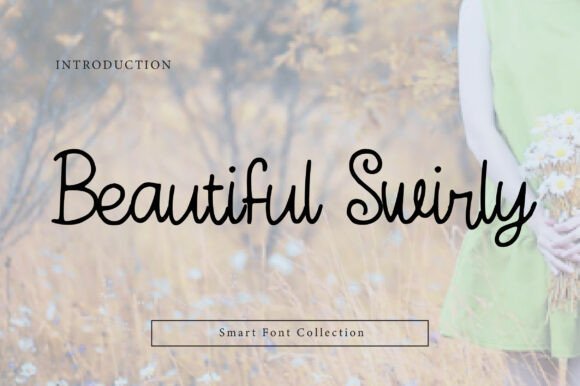
Unleash the Magic of Beautiful Handwritten Text
As a designer, have you ever stared at a blank page, trying to capture the essence of a dreamy concept? The right font can make all the difference, transporting your audience to a world of whimsy and wonder. For those seeking a touch of magic in their creative projects, I’d like to introduce you to the enchanting Beautiful Swirly Font.
This delicate handwritten typeface brings a unique blend of elegance and playfulness to your designs. Characterized by its fluid loops and whimsical terminals, the Beautiful Swirly Font captures the essence of a hand-penned letter, making it perfect for adding an artisanal touch to your work. Whether you’re designing for weddings, beauty brands, or social media, this font is sure to elevate your creations and leave a lasting impression on your audience.
Key Features of Beautiful Swirly Font
- Unique Characteristics: Whimsical swirly design, perfect for creative and artistic projects
- Recommended for: Logos, branding, invitations, and other creative applications
Beautiful Swirly Font Review
First off, I want to say that I love the whimsical vibe of this font. It’s perfect for adding a touch of magic to your designs ✨. The swirly patterns and flourishes make it ideal for titles, headings, and other attention-grabbing elements. It’s also great for creating a sense of movement and energy.
However, I do have some concerns about its versatility ⚠️. The font’s swirly style can make it difficult to read in certain situations, especially in smaller sizes or when used for large blocks of text. Additionally, it may not be the best choice for formal or professional designs, as it can come across as too playful or childish.
- Whimsical, swirly design that adds a touch of magic to your designs ✨
- Perfect for titles, headings, and other attention-grabbing elements
- Great for creating a sense of movement and energy
- May not be suitable for formal or professional designs ⚠️
- Can be difficult to read in certain situations, especially in smaller sizes
I would recommend the Beautiful Swirly Font for designs that require a touch of whimsy and personality. However, it’s essential to use it judiciously and in the right context to avoid readability issues. With some careful planning and design considerations, this font can be a real showstopper in the right projects.
The Beautiful Swirly Font is ideal for use in creative and artistic projects, such as:
- Party decorations and signage
- Children’s books and educational materials
- Marketing and advertising materials
What are the technical specifications of the Beautiful Swirly Font?
The Beautiful Swirly Font is a Unicode font with full support for Latin, Greek, and Cyrillic scripts. It contains 500+ glyphs, including ligatures, swashes, and ornaments. The font is optimized for high-resolution displays and has a minimum font size of 10pt. The font metrics are based on the OpenType specification.